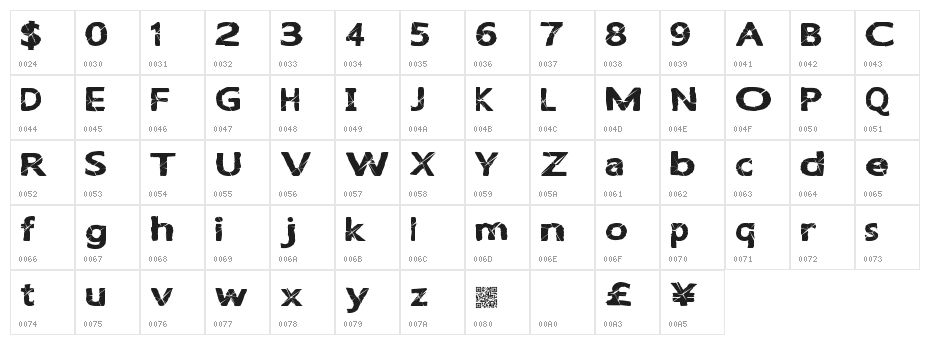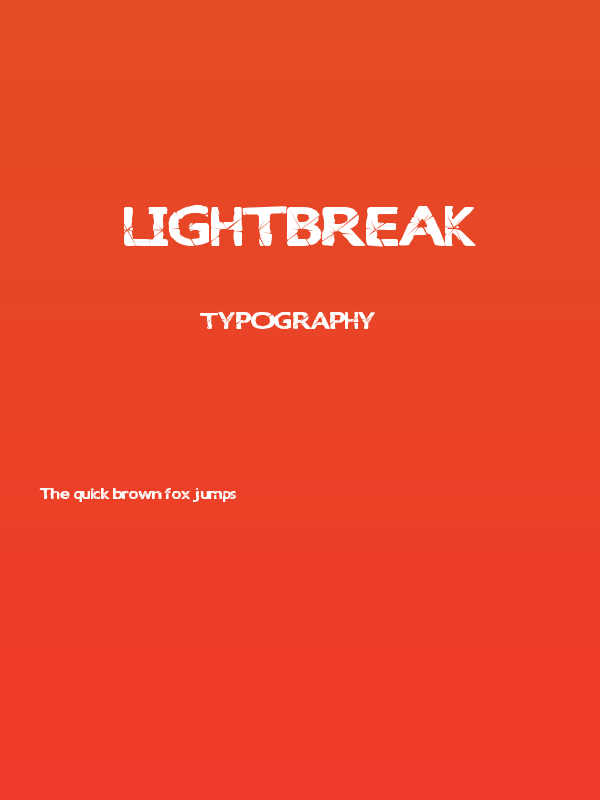
LightBreak Font
LightBreak Description
This font features a bold and fragmented design, giving the impression of shattered glass or cracked surfaces. The characters are robust and display a unique, broken texture that adds a dynamic and edgy feel. The uppercase and lowercase letters maintain a consistent style, with each character appearing as if it has been fractured into multiple pieces. The numbers and special characters follow the same aesthetic, ensuring a cohesive look across all elements. This font is ideal for projects that require a strong visual impact and a modern, unconventional style.
| Overall Style | Modern, Edgy |
| Proposed Projects | Ideal for album covers, posters, branding for edgy or modern products, and any design needing a strong visual impact. |